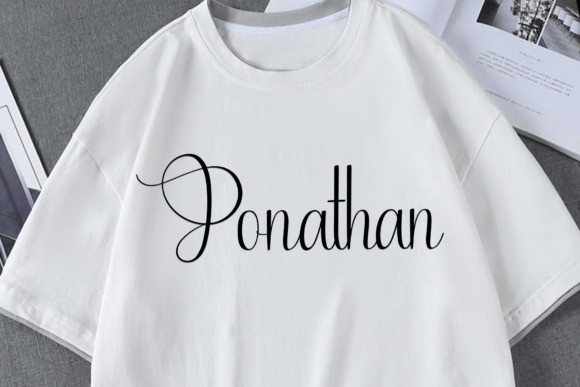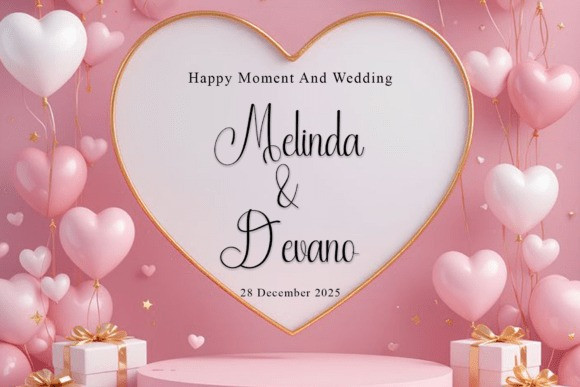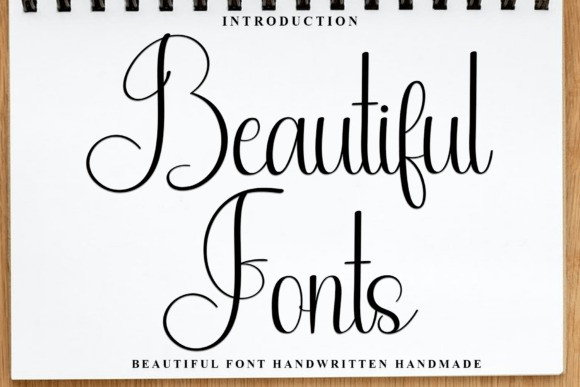
Beautiful Handwriting Font
Beautiful Handwriting Font is a delicate and elegant handwritten font. Its distinct and well balanced letters make this font a masterpiece. Fall in love with its incredibly versatile style and use it to create spectacular designs!